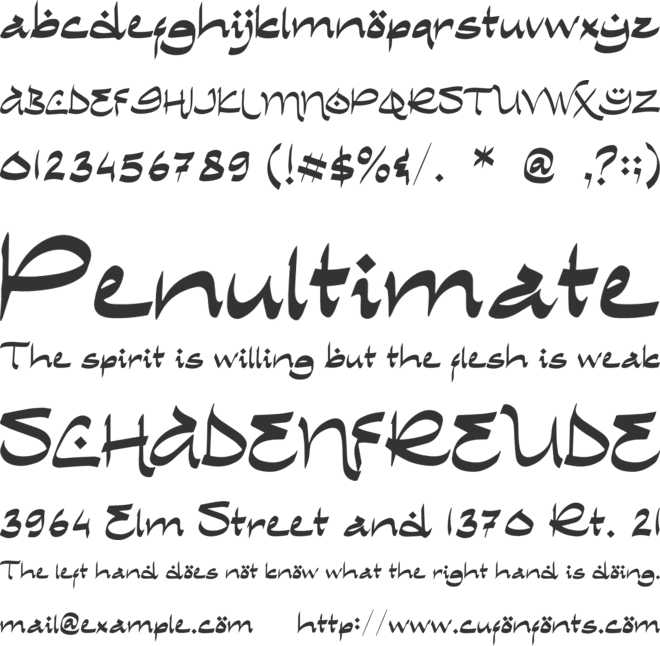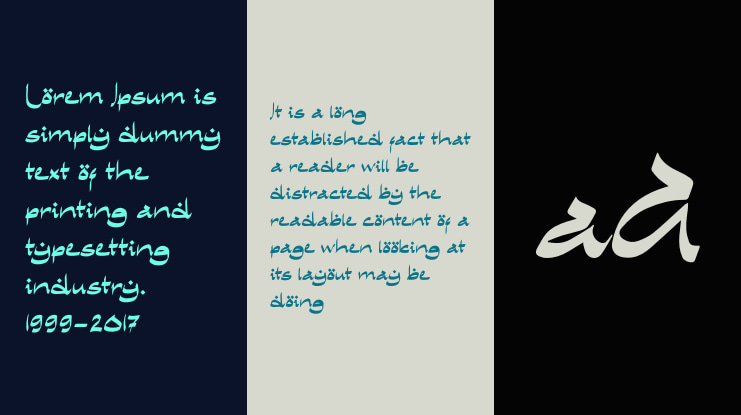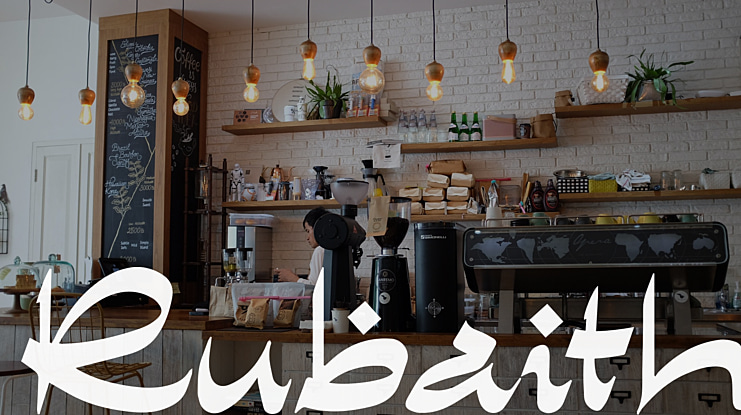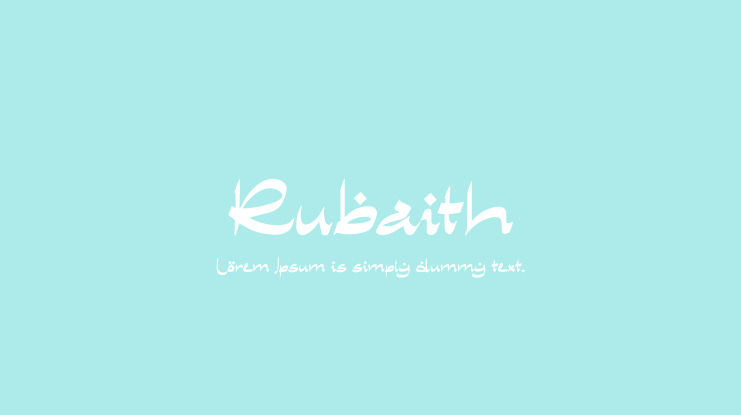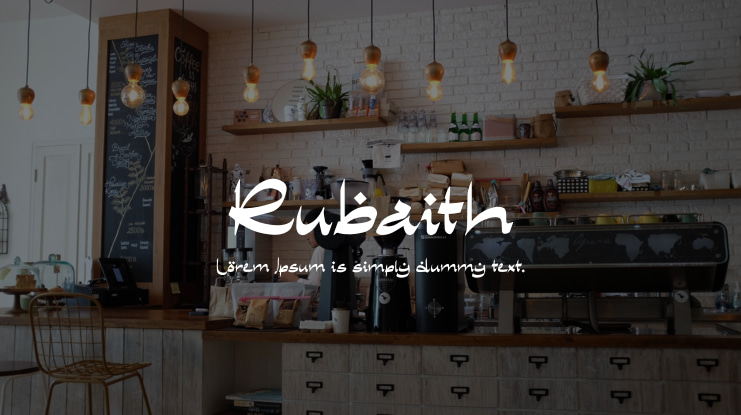
Rubaith Font
Arabic fonts - Rubaith is a new font from Slidehack. This arabic style font will be perfect for your headline font, logo font and other display. Especially for any Islamic, arabic, or middle east cultural event.
Features:
- Uppercase & Lowercase
- Numeral & Punctuation
- Opentype Features